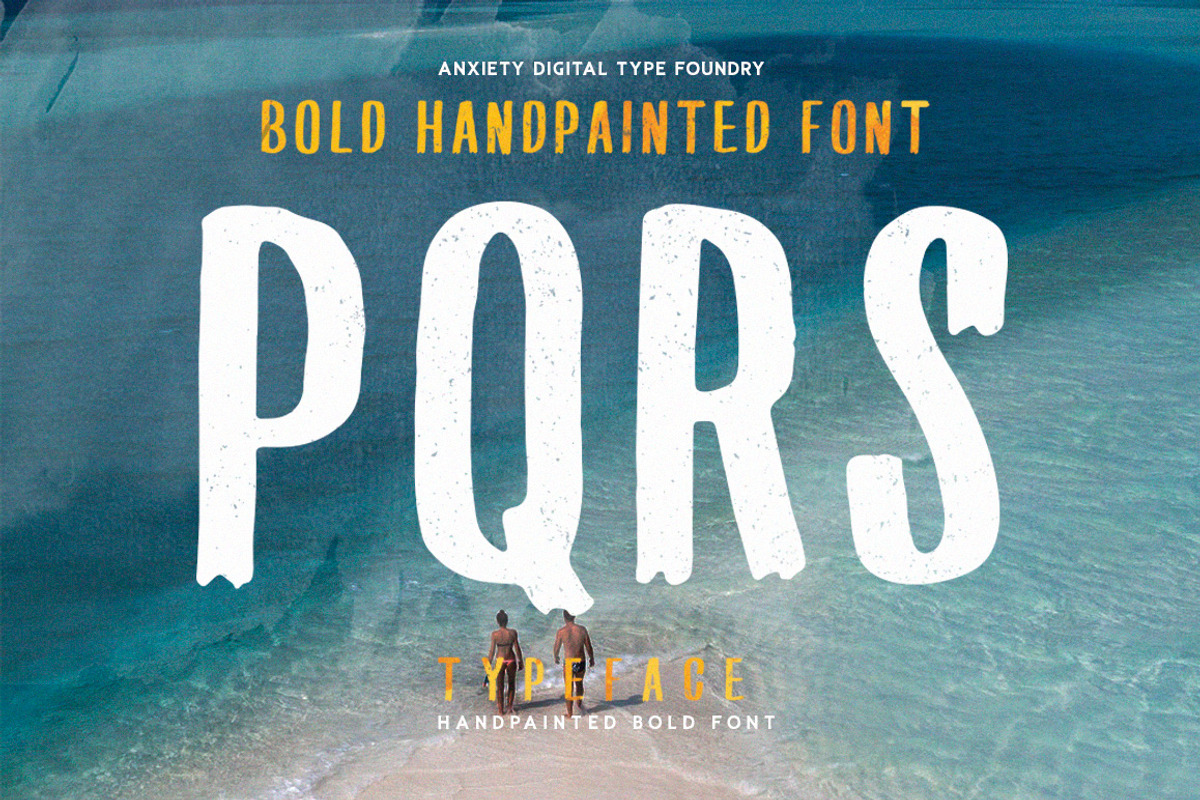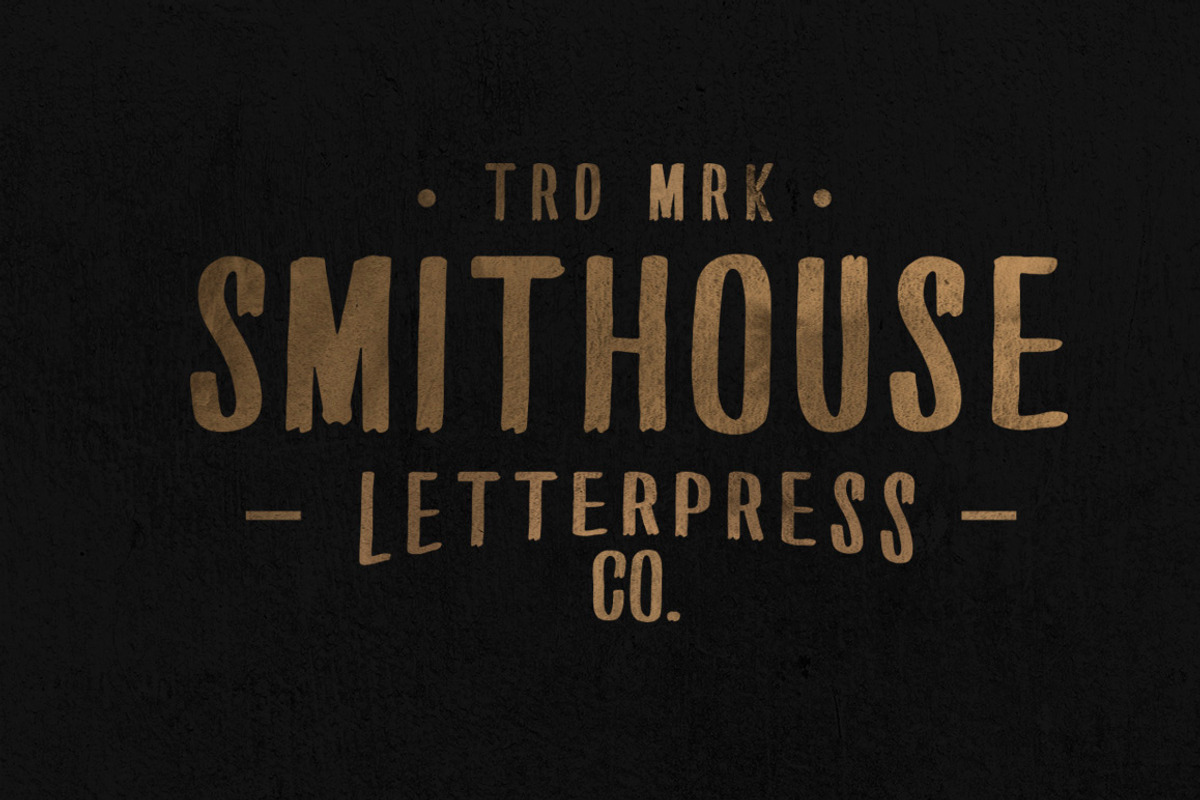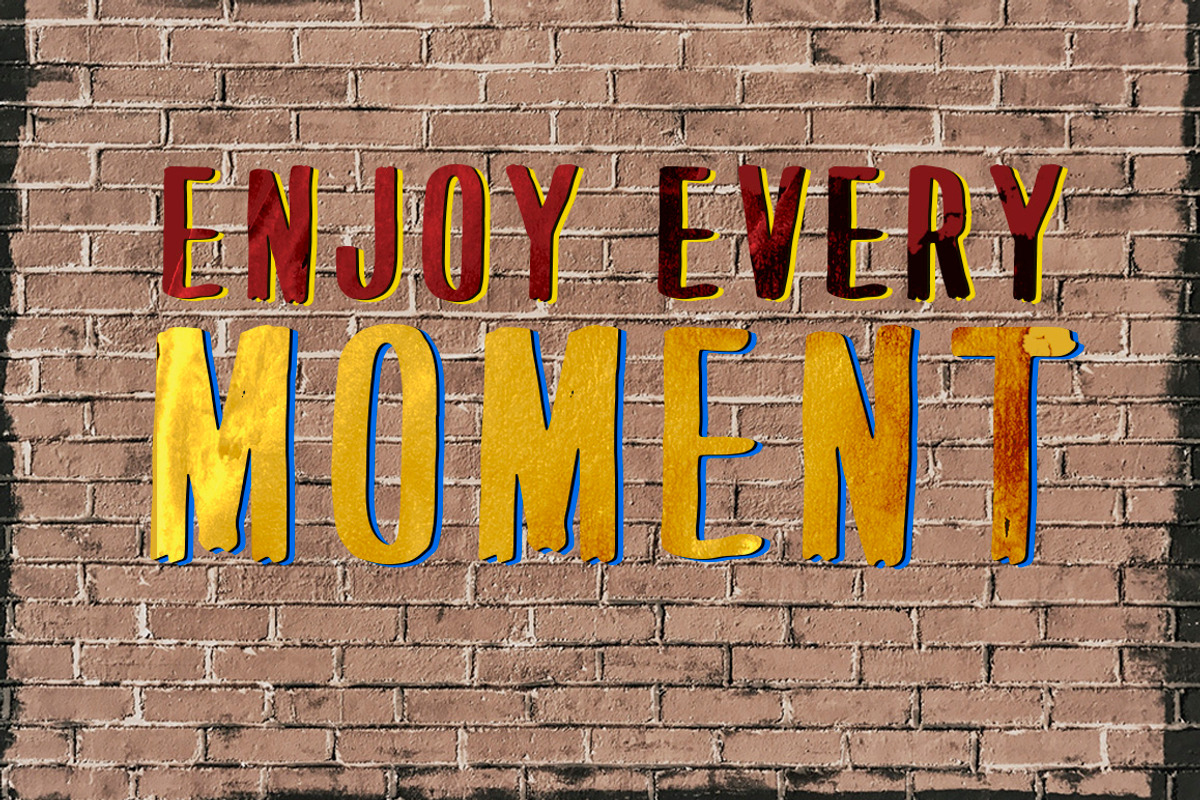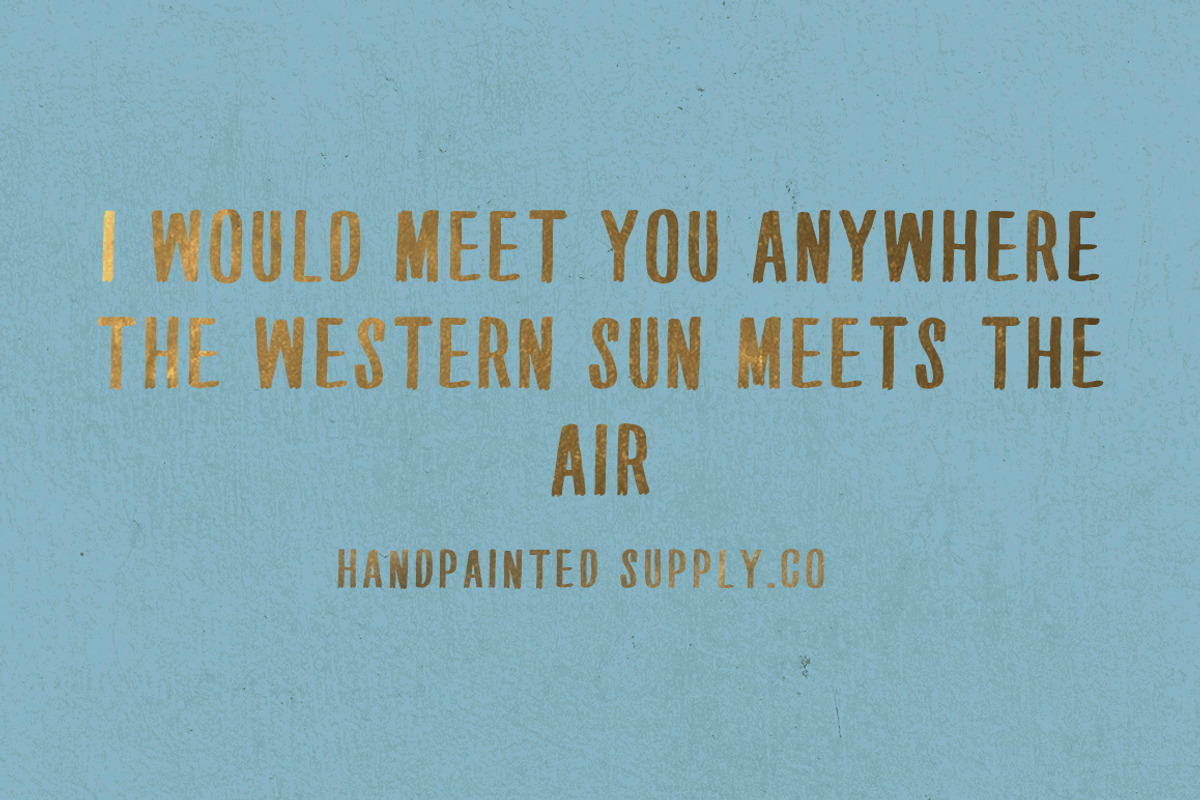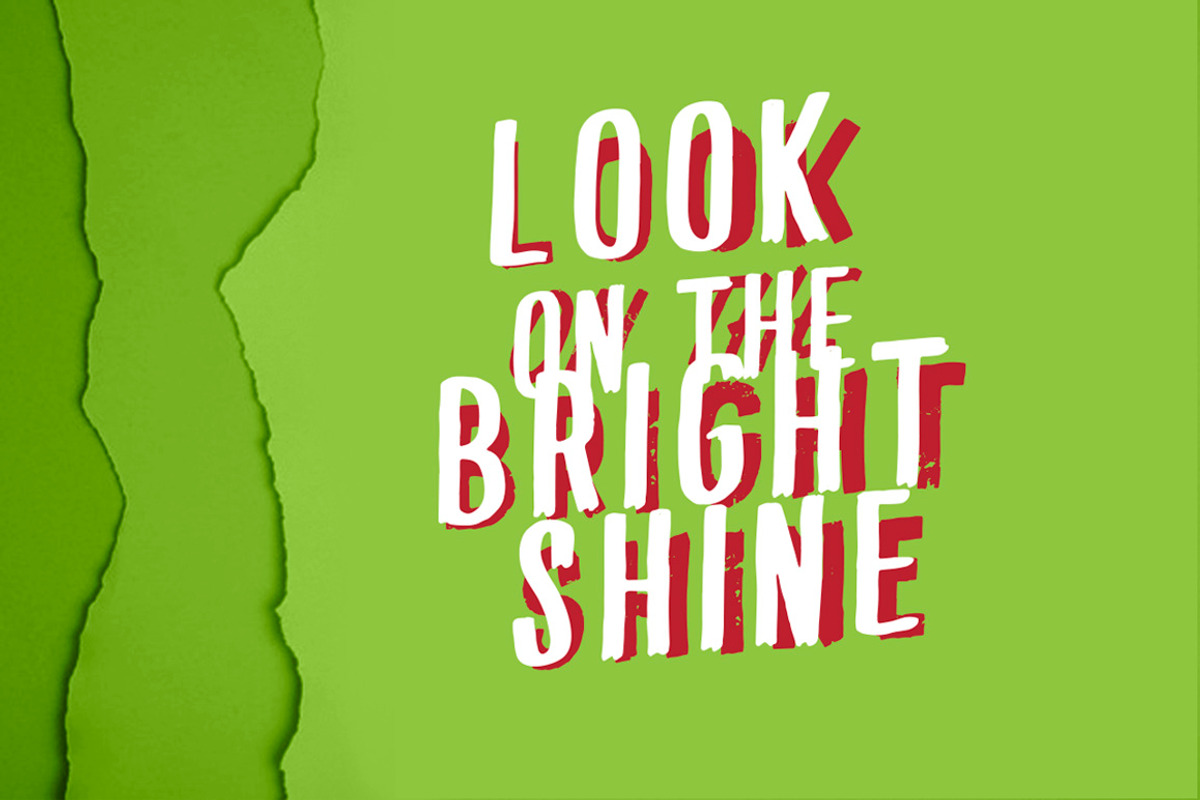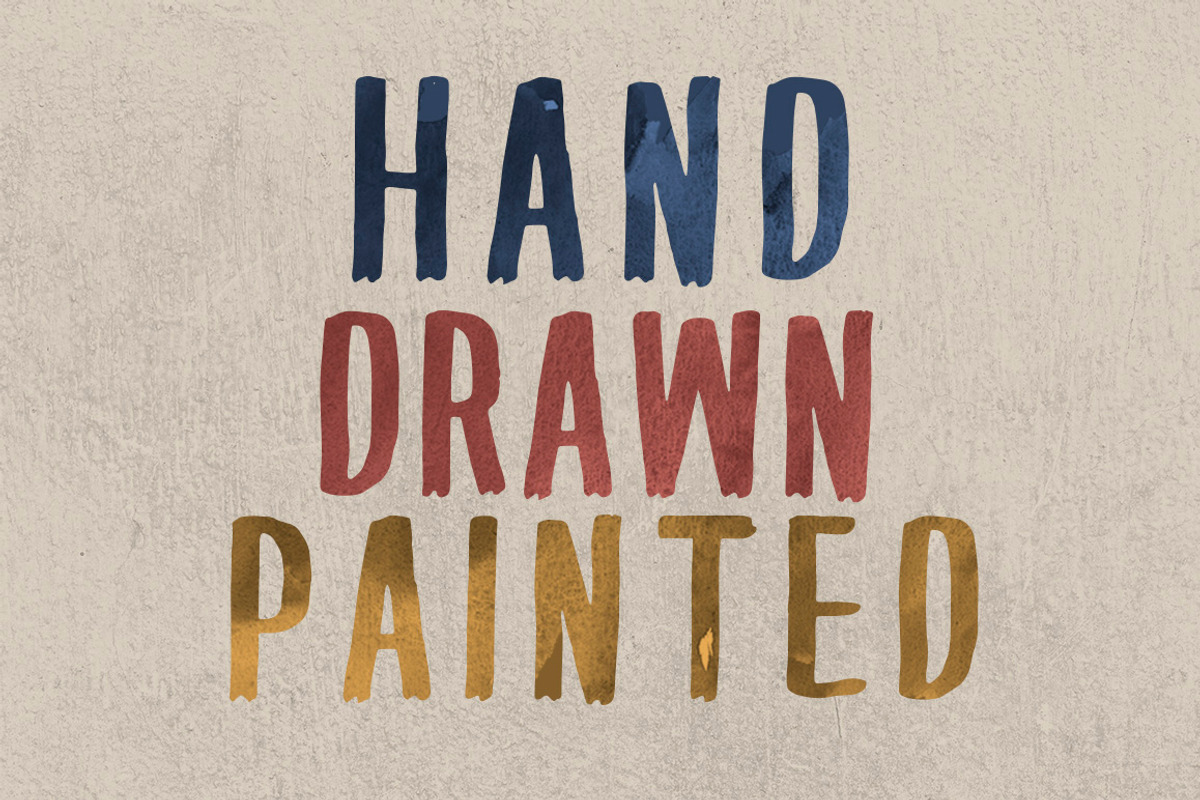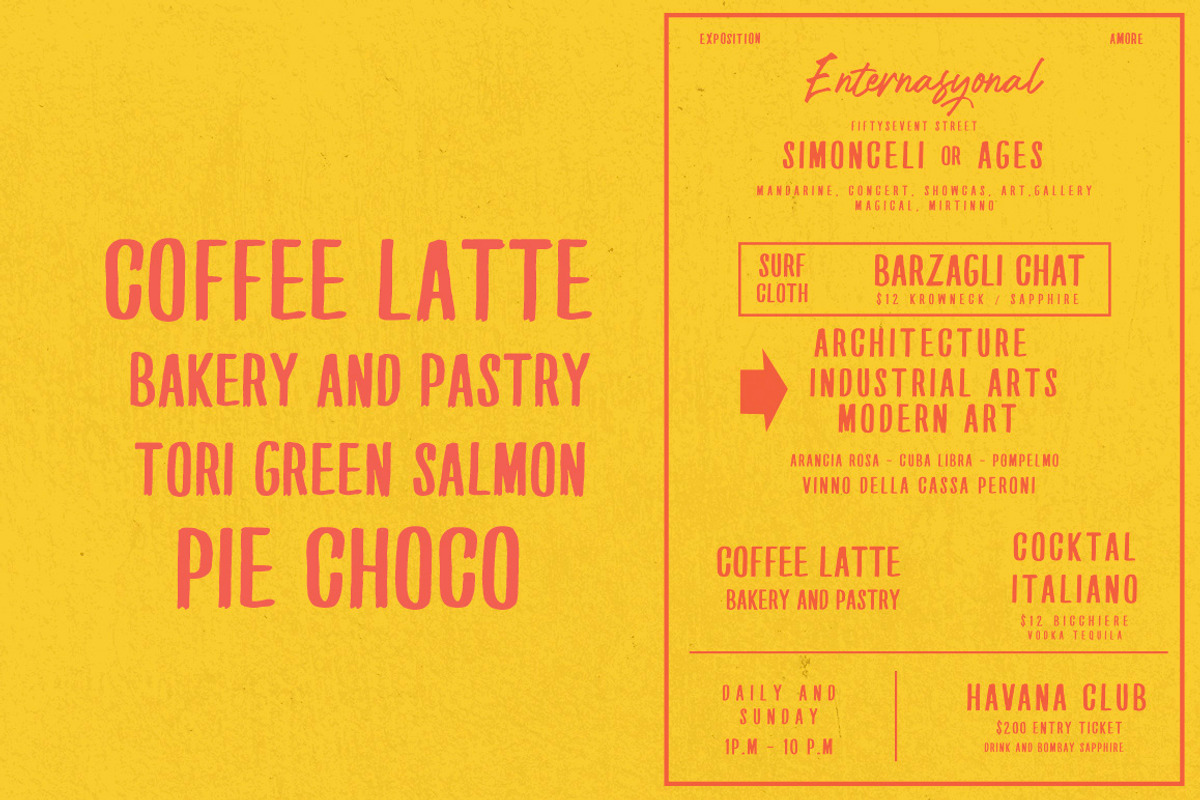
PQRS Handpainted Bold Font
PQRS Typeface is hand painted typeface designed to help you create the look of stunning custom hand-lettering. hand-painted dry brush font, With rough bold strokes
PQRS Typeface is very best choice fonts for : ,quotes, Posters, Logos, Print Ads, Digital Ads, Promotion Product, video bumper, product packaging, promotional messages, handwritten quotes, poster, home decor and branding projects, etc.
Why PQRS Handpainted Bold Font is worth a look
PQRS Handpainted Bold Font by Anxiety Studio fits naturally into Branding, posters, packaging, typography.